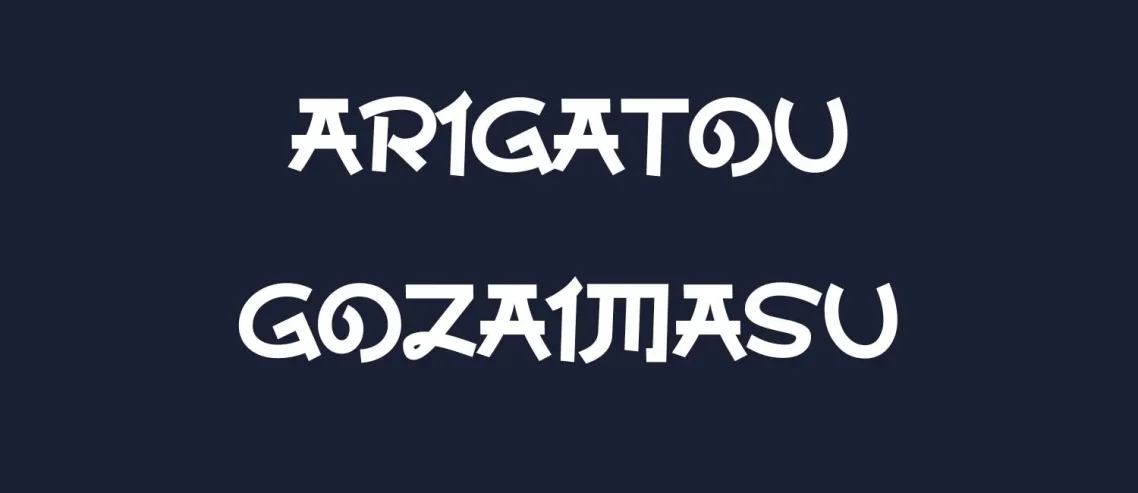
A Arigatou Gozaimasu Font was inspired by the Japanese song and you can clearly observe the touch of Japanese culture in its characters. This typeface was constructed by Wahyu Eka Prasetya and it is offered in single regular weights. This typeface has a large character set including uppercase letters, lowercase letters, punctuations, special characters, and …